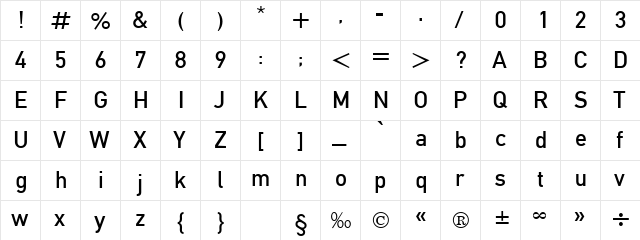
DinC Regular
Design Context for DinC Typeface
DinC takes a measured approach to typography — its balanced proportions and neutral character make it a reliable workhorse for both digital and print work.